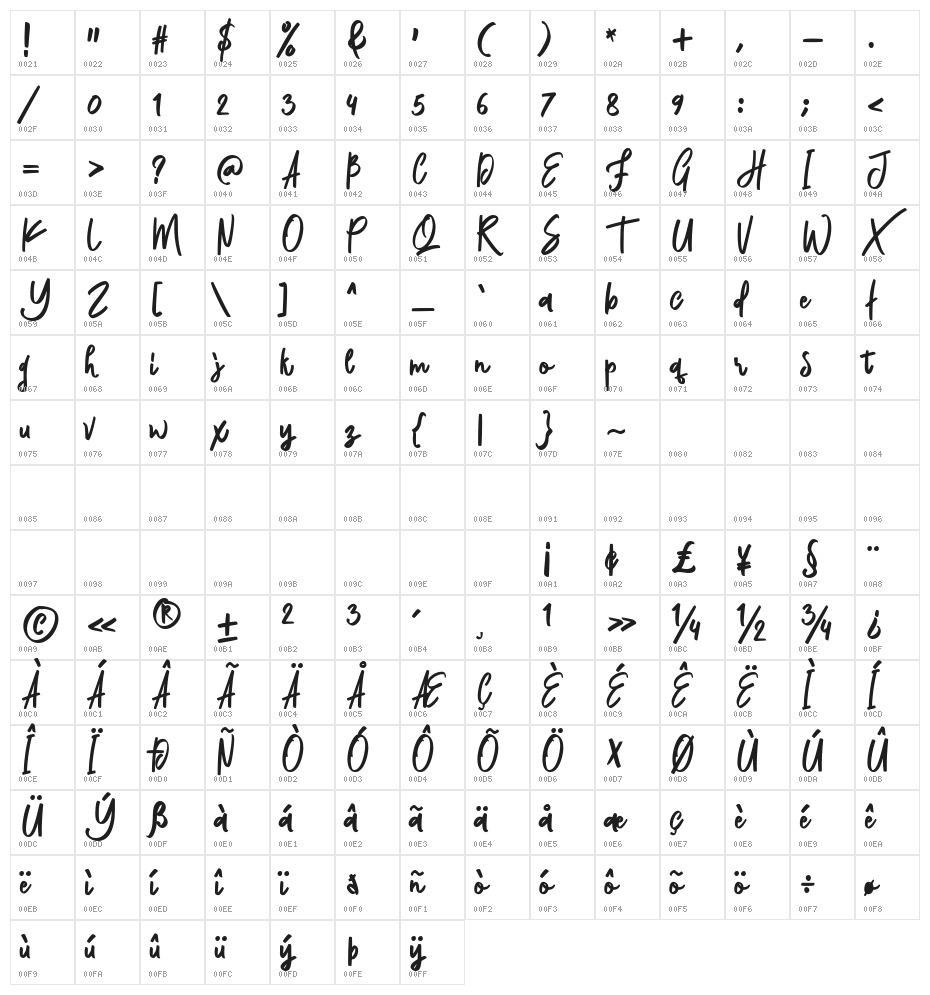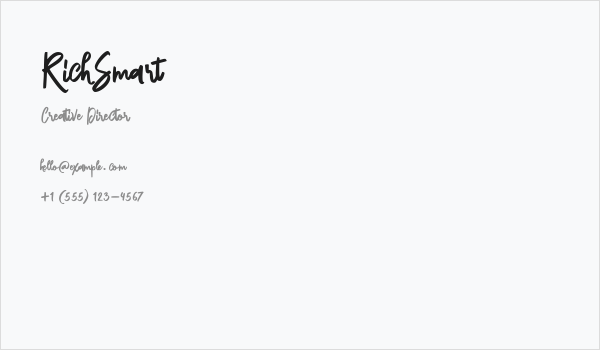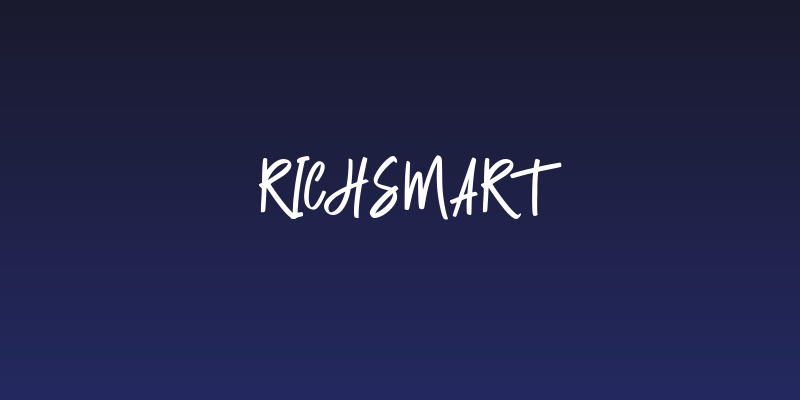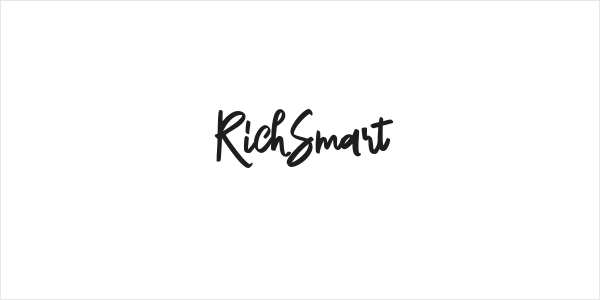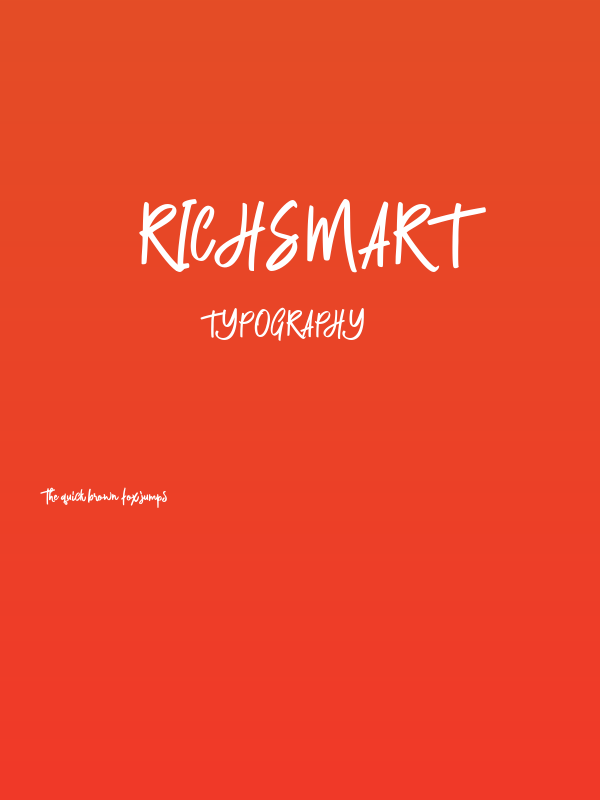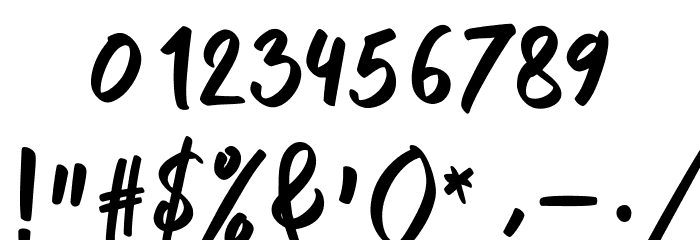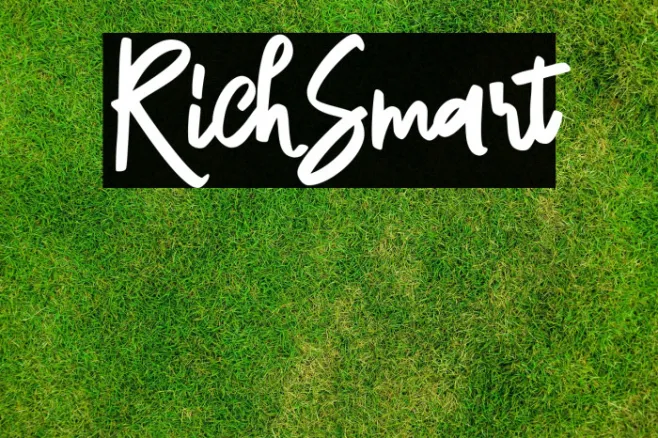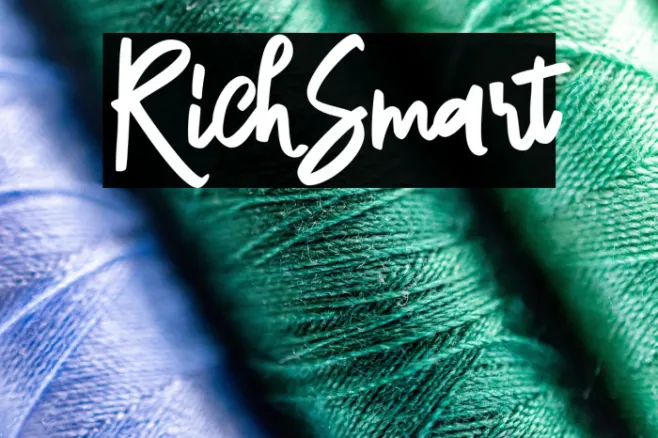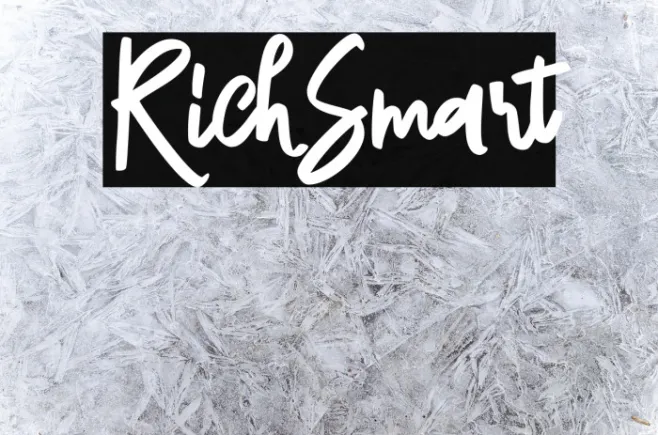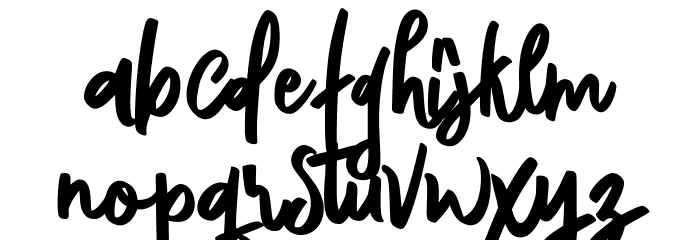
RichSmart Font
RichSmart Description
This font exudes a lively and energetic vibe with its handwritten style. The letters are fluid and dynamic, with a playful yet sophisticated appearance. The uppercase and lowercase characters maintain a consistent flow, while the numbers and special characters complement the overall design. The strokes are bold and confident, giving the font a strong presence. This style is perfect for projects that require a personal touch or a creative flair. The font's unique character makes it suitable for a variety of uses, from branding to artistic projects.
| Proposed Projects | Ideal for branding, invitations, posters, and creative projects requiring a personal touch. |